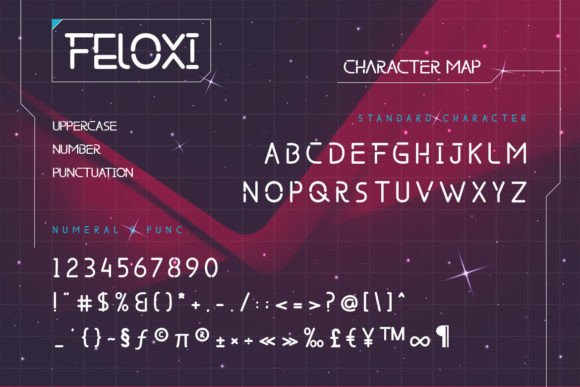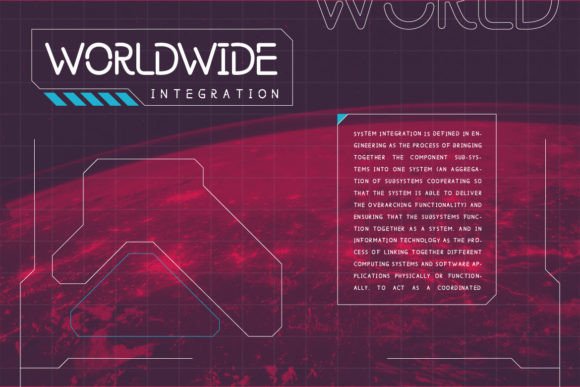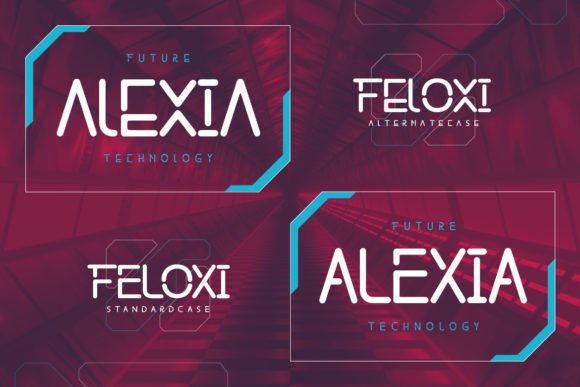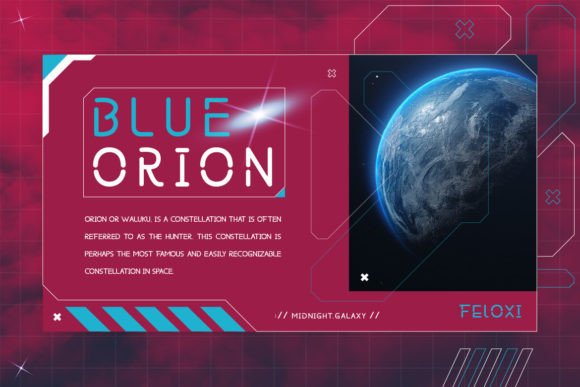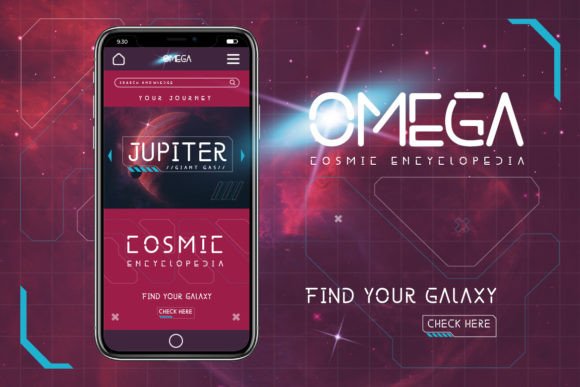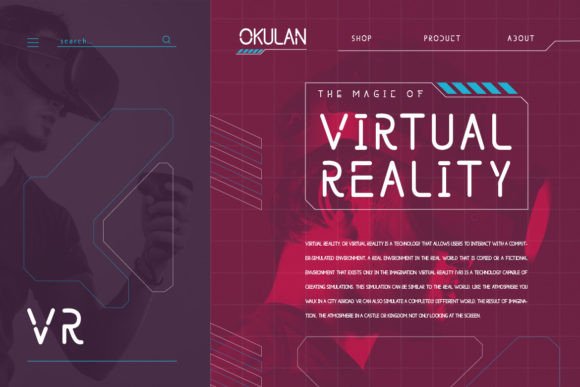
The Neon Dream: Unleashing Creativity with Feloxi Font
I’ll never forget the late nights spent scrolling through font libraries, searching for that perfect, eye-catching typeface for a client’s logo design project. The brief was simple: create a neon-lit, retro-futuristic vibe that would make their brand stand out. As I sifted through page after page of fonts, one caught my eye – Feloxi. This crafted, neon-inspired font was exactly what I needed to bring my design to life. In this article, I’ll share my experience with Feloxi, its features, and how to make the most of it in your designs.
First Impressions: A Love Letter to Feloxi
Feloxi is a game-changer for designers, crafters, and creative hobbyists looking to add a touch of neon magic to their work. Here’s what I love about it:
- ✨ Neon-inspired aesthetic: Feloxi’s unique, hand-crafted feel is reminiscent of traditional neon signs.
- ✅ Versatility: This font is perfect for logo design, social media posts, movie titles, book titles, and even long text letters.
- ✅ Pairing flexibility: Feloxi works beautifully with both sans-serif and serif fonts, making it an excellent choice for secondary text.
The Not-So-Perfect: A Few Quirks
No font is perfect, and Feloxi is no exception. Here are a few things to keep in mind:
- ⚠️ Limited availability of extended characters: While Feloxi covers the basics, it may not have every special character or glyph you need.
- 🤔 Some letters may require manual kerning: As with any font, you may need to adjust the spacing between certain letters for optimal readability.
Feloxi’s Design Inspiration
Feloxi’s creator drew inspiration from the neon-lit cityscapes of the 1980s, combining traditional craftsmanship with modern digital techniques. The result is a font that’s both nostalgic and cutting-edge.
| Font Name | Feloxi Font |
| Author | Keristyper |
| What type of projects is Feloxi best suited for? | Feloxi is perfect for logo design, social media posts, movie titles, book titles, and any project that requires a neon-inspired aesthetic. |
| Does Feloxi support OpenType features? | Yes, Feloxi supports OpenType features like ligatures and stylistic alternates, allowing for greater creative flexibility. |
Feloxi is a versatile, neon-inspired font that’s sure to elevate your designs. Whether you’re a seasoned designer or a creative hobbyist, this font is a great addition to your toolkit. Experiment with Feloxi today and bring a touch of neon magic to your work!